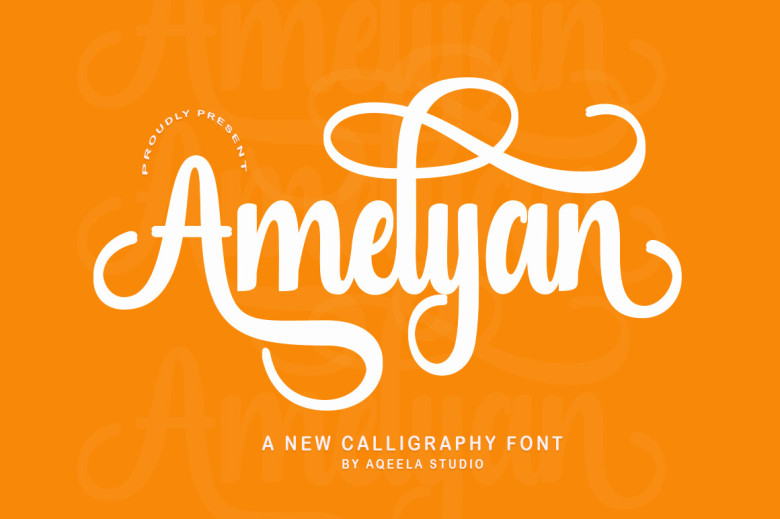
Amelyan Font
Amelyan offers a fun and friendly calligraphic font. Perfect for wedding invitations, greeting cards or any design that needs an injection of humor!
Amelyan Calligraphy Script Font